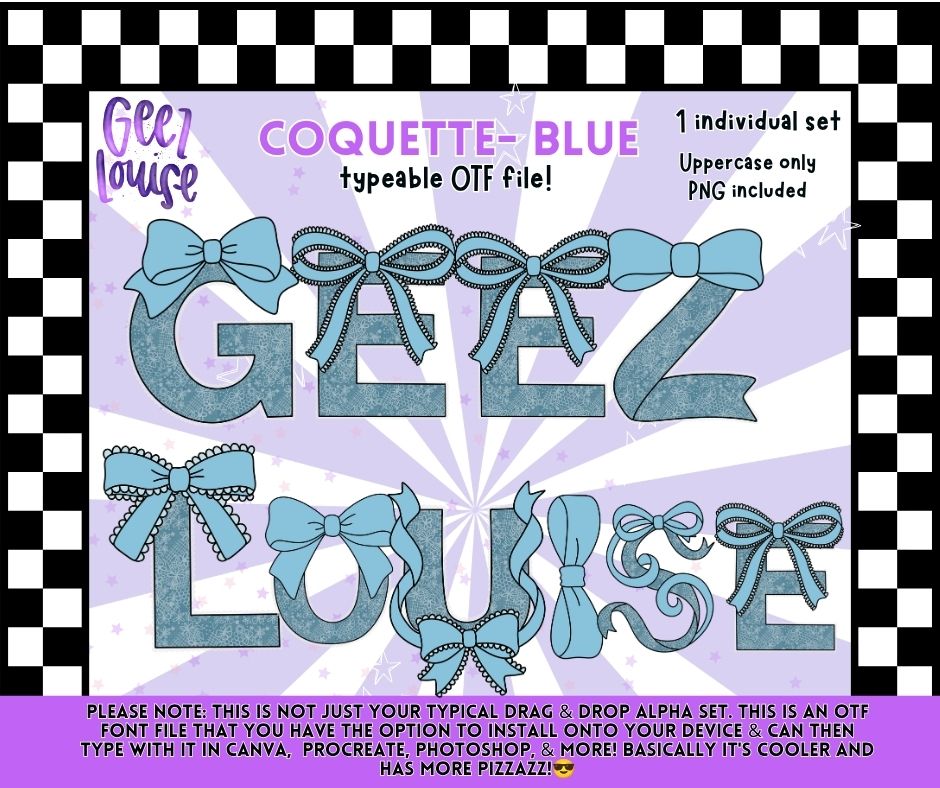
Coquette Blue OTF Alpha Font & PNG Alphabet Set
Create beautiful custom words and phrases with the Coquette Blue OTF Alpha! This decorative alphabet features soft blue letters, trendy bows, and an elegant coquette aesthetic. Install the OTF font to type directly in your favorite design programs, or use the included PNG files.
- Uppercase Alphabet
- Uppercase alphabet only